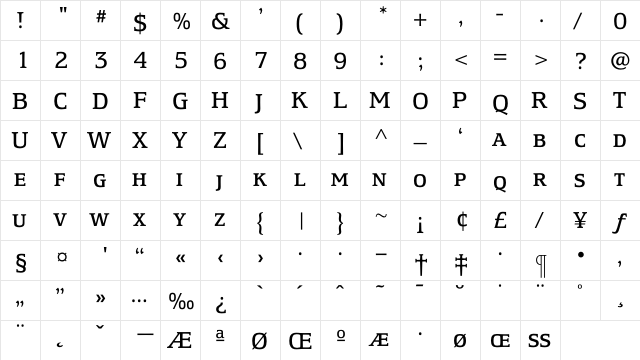
EquestrienneBookExpert Regular
Design Context for EquestrienneBookExpert Typeface
EquestrienneBookExpert takes a measured approach to typography — its balanced proportions and neutral character make it a reliable workhorse for both digital and print work.